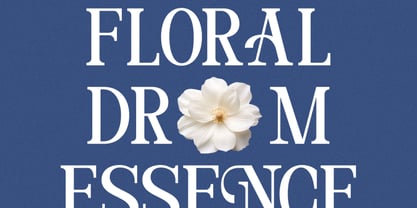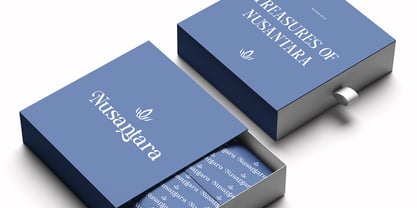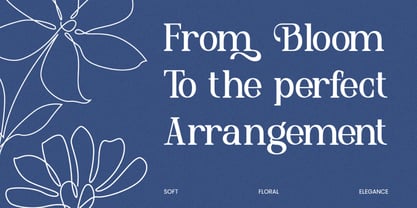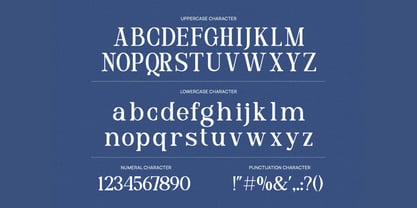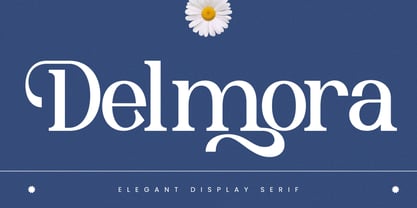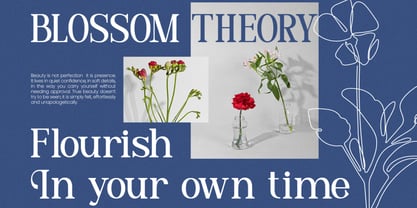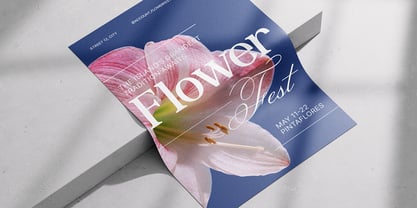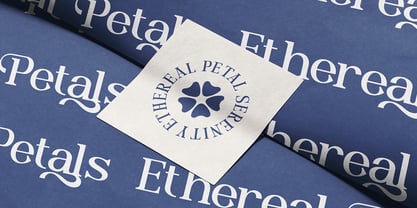
Delmora
Delmora features a graceful elegant display serif typeface with refined contrast, decorative curves, and luxurious floral-inspired details crafted for premium typography compositions. The font includes uppercase, lowercase, numerals, punctuation and stylish alternates suitable for branding, editorial, and sophisticated visual storytelling. Its balanced serif structure and ornamental touches create a timeless aesthetic for logos, packaging, invitations, and fashion-forward layouts.
Relevance and Use Cases is perfect for luxury branding, fashion editorials, beauty packaging, wedding invitations, boutique logos, magazine headlines, floral themed designs, premium product labels, social media branding, feminine marketing visuals, and elegant typography-driven creative projects.